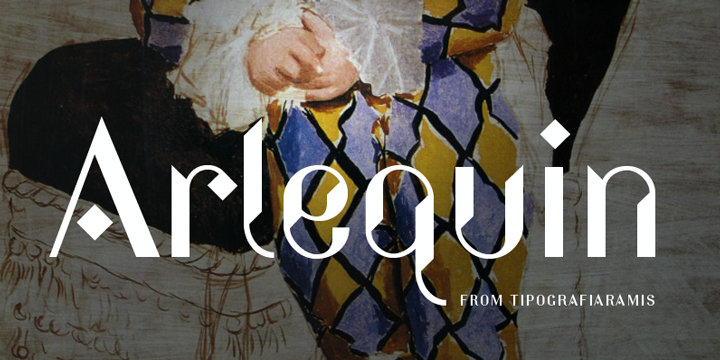
Arlequin Font Free Download – A whimsical, theatrical typeface bursting with playful charm and dramatic flair. Commercial use requires licensing, but you can download the free version to add carnival magic to your personal projects.
Where Can You Use Arlequin Font?
This charismatic font performs beautifully in:
Circus/carnival posters (vintage big top aesthetics)
Children's entertainment (toy packaging, playful book covers)
Theater programs (Shakespearean comedies, pantomime ads)
Festive invitations (masquerade balls, costume party flyers)
Why Is Arlequin Font Exciting?
Arlequin delivers stage-worthy typography with:
Dramatic swashes that command attention
Alternate harlequin-pattern characters for custom looks
Perfect balance between playful and elegant
Built-in ornaments for instant vintage charm
Arlequin Font Family
The complete troupe includes:
Arlequin Regular (base performance style)
Arlequin Bold (encore-worthy emphasis)
Arlequin Fancy (extra decorative variant)
Arlequin Shadow (3D stage-lit effect)